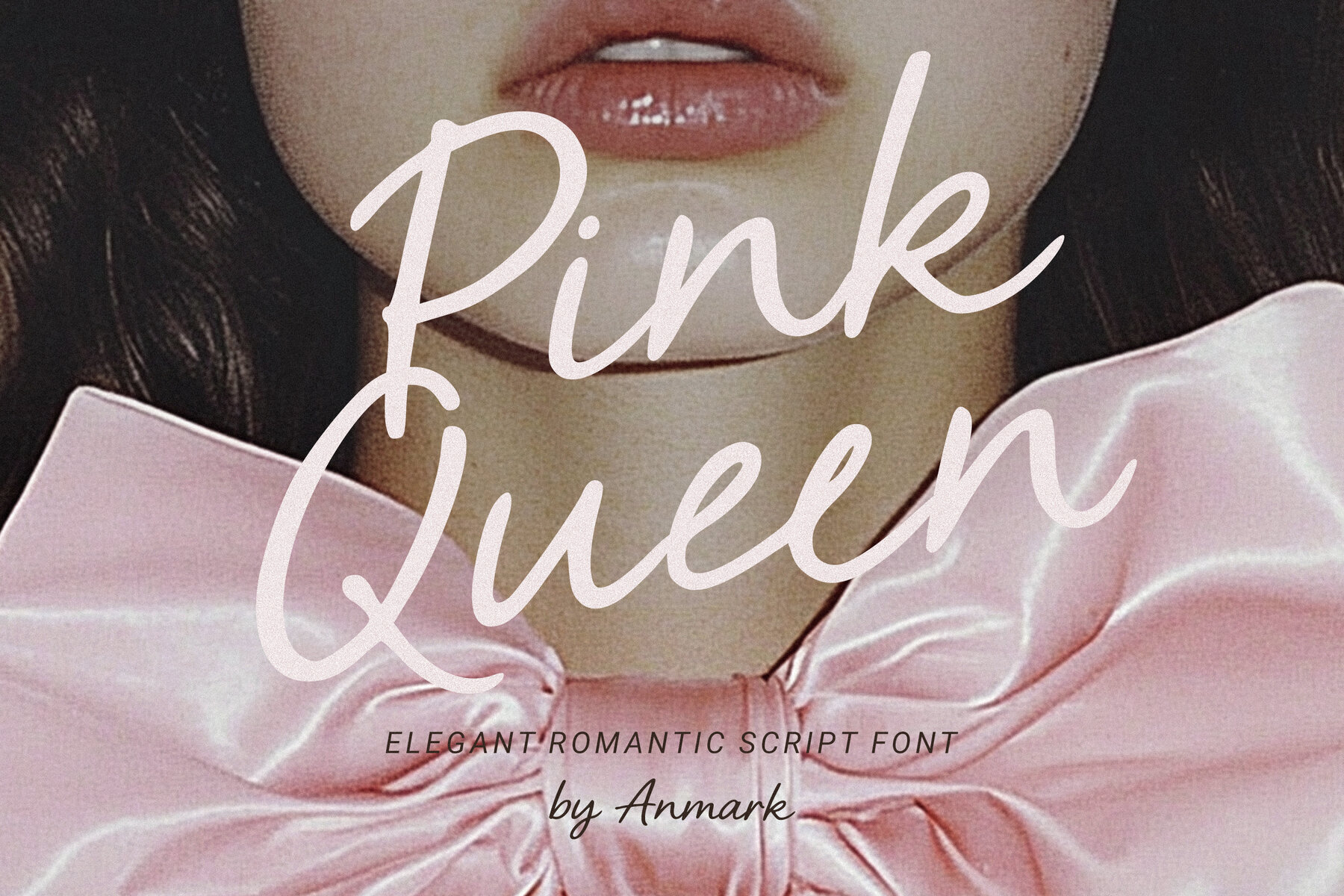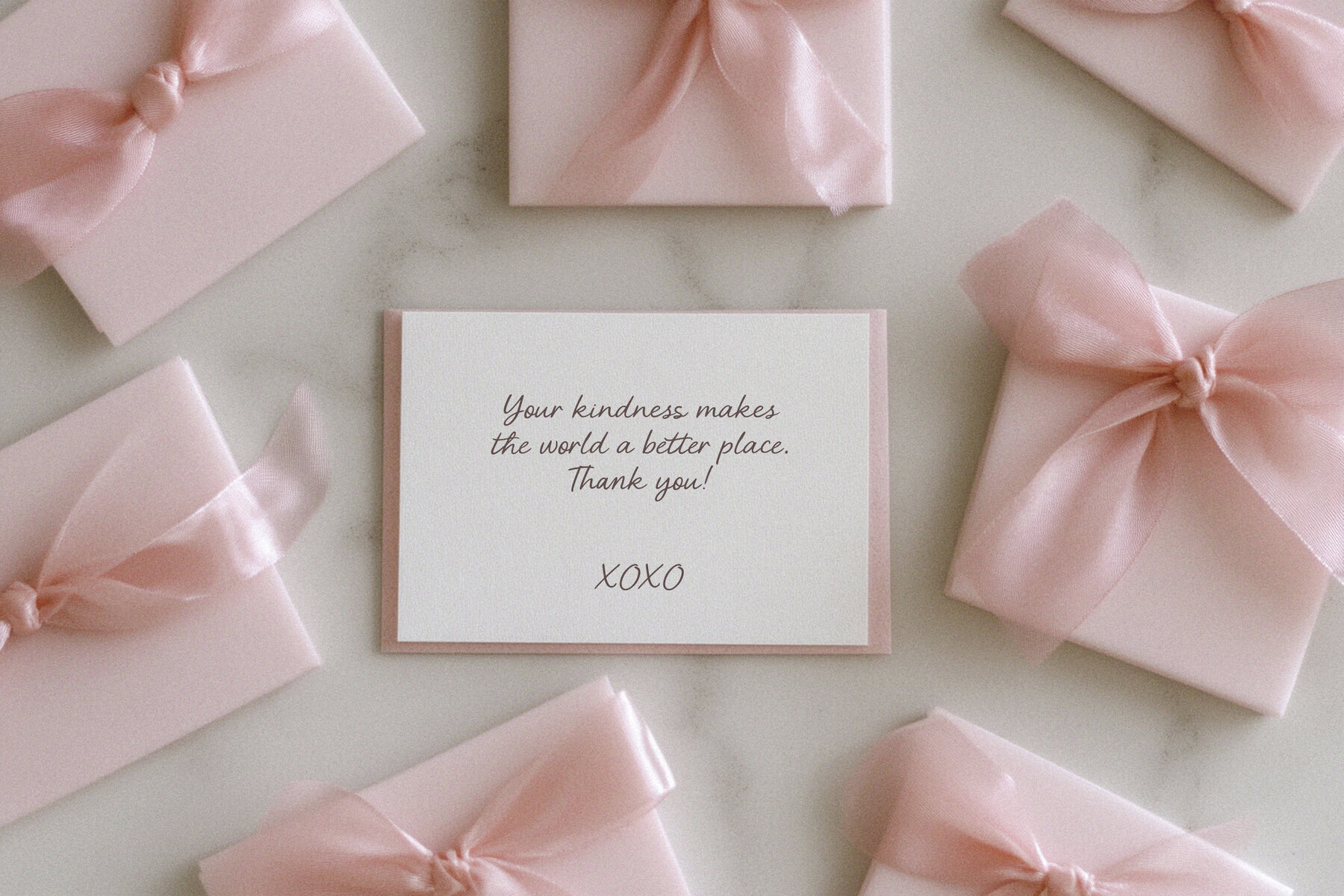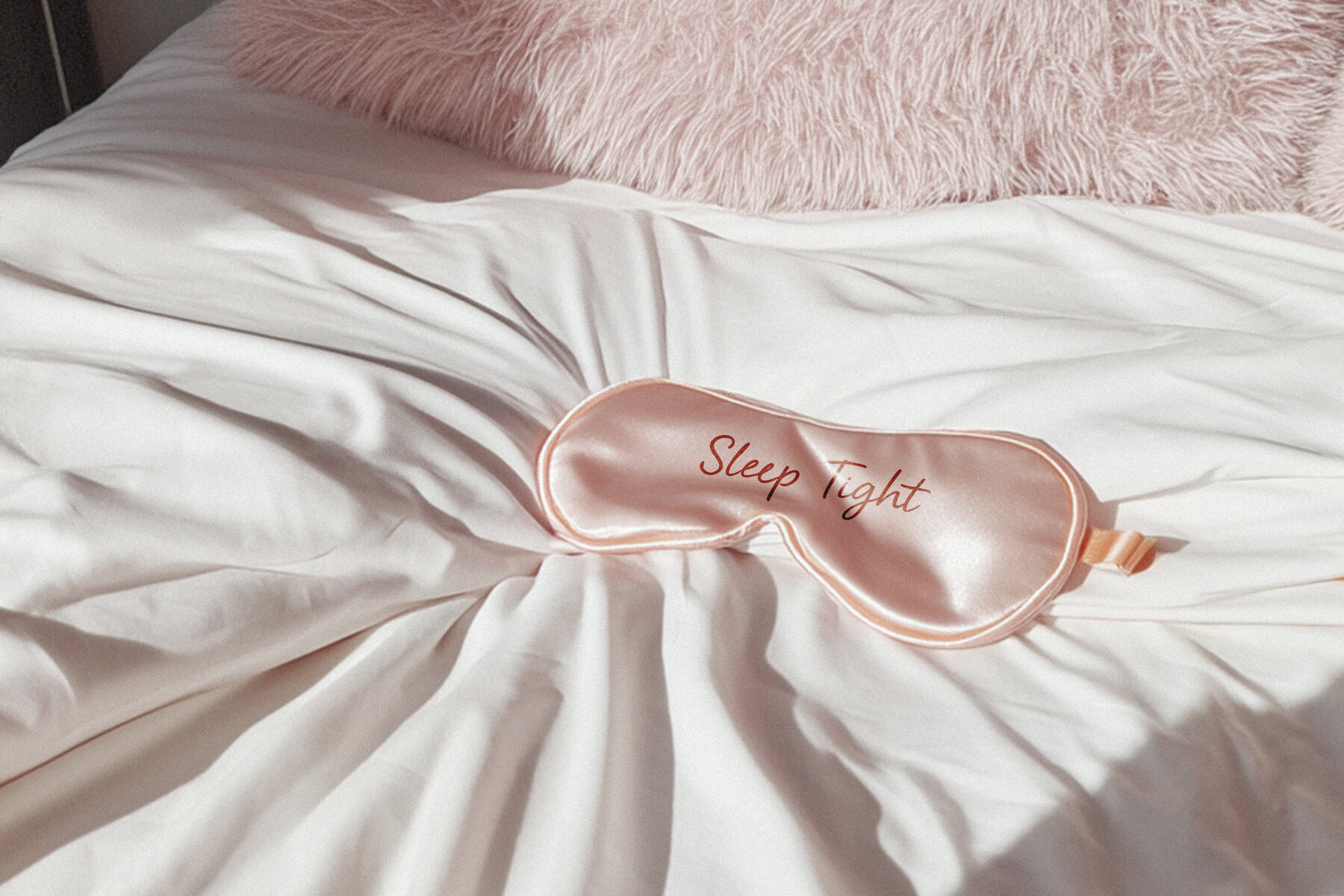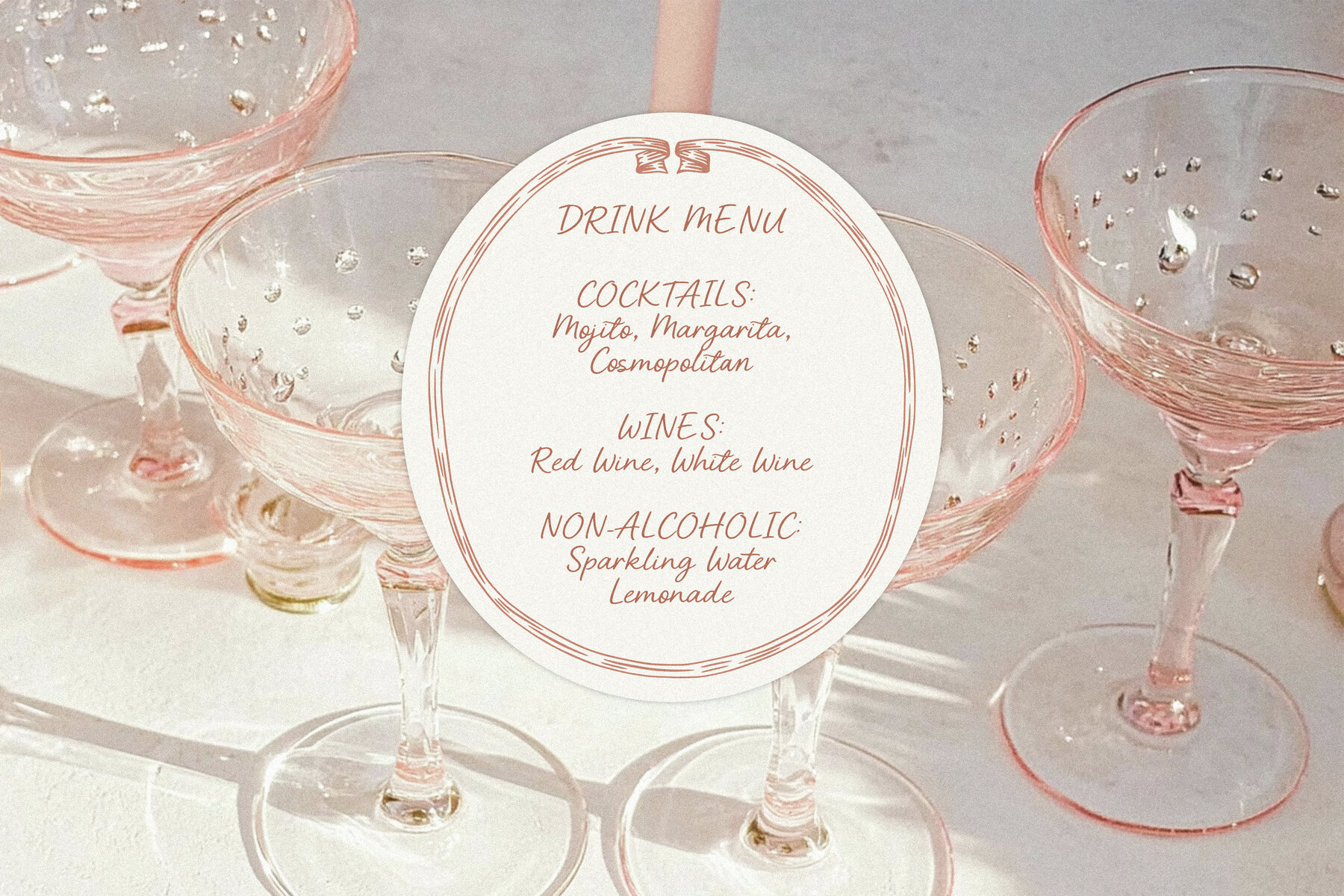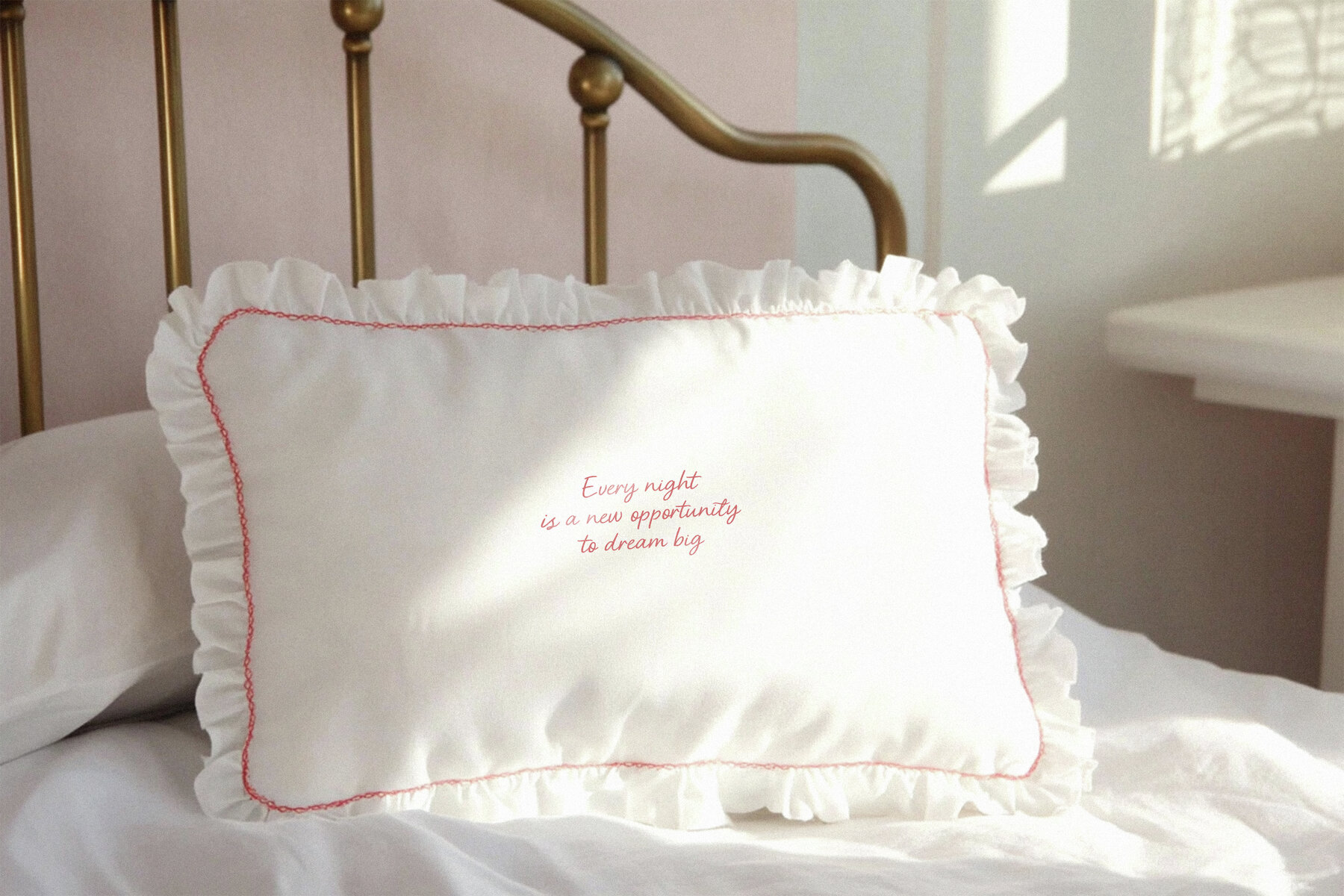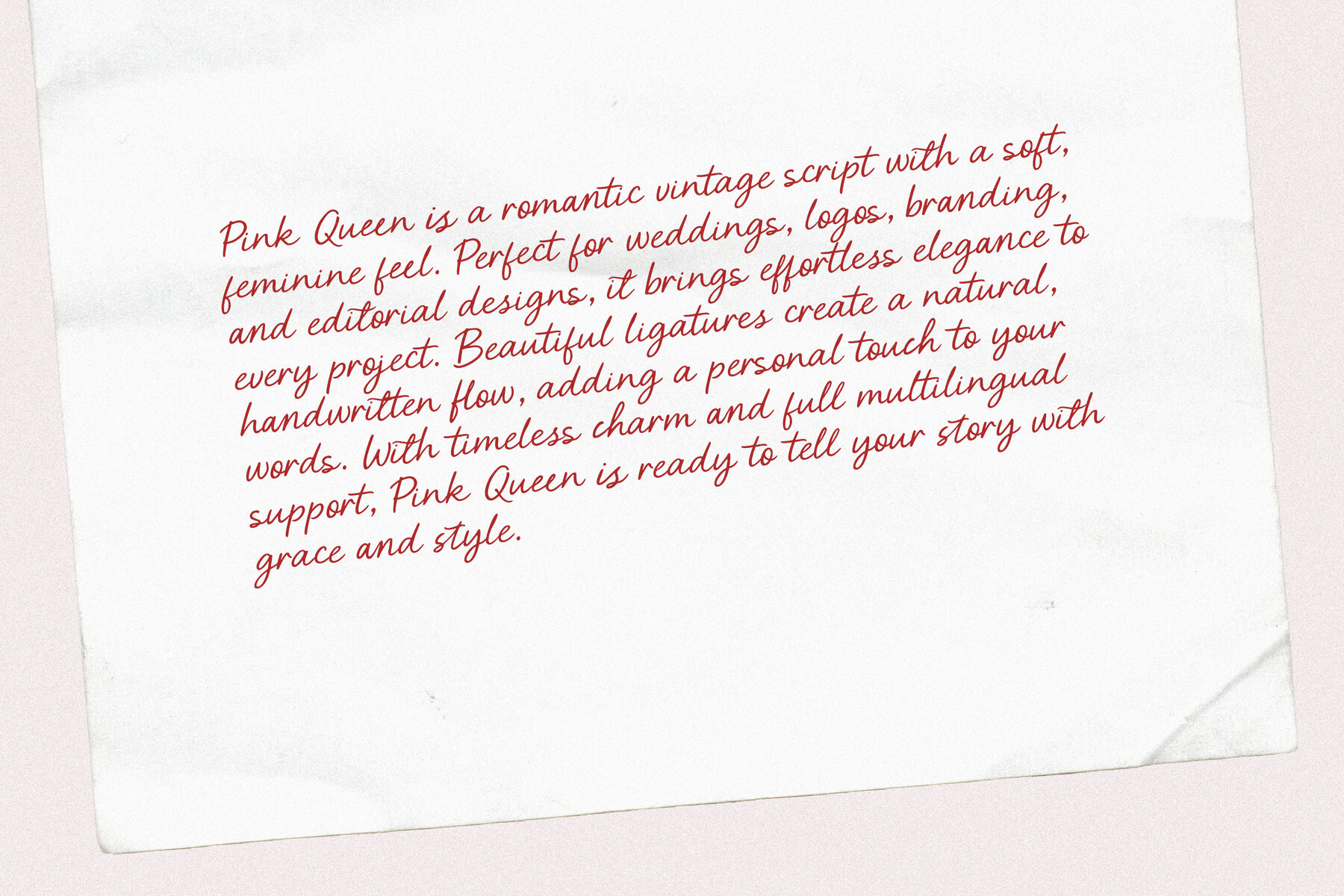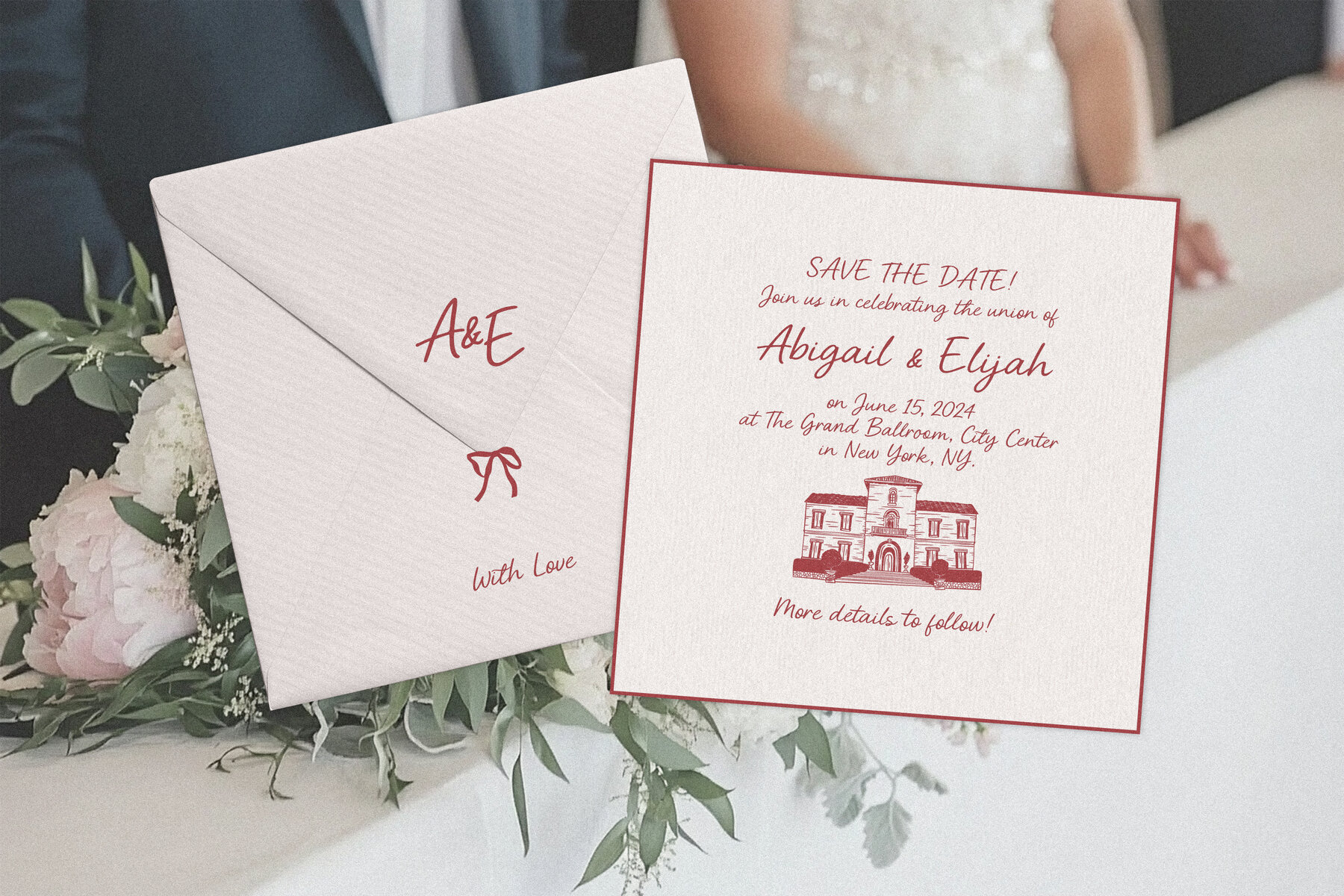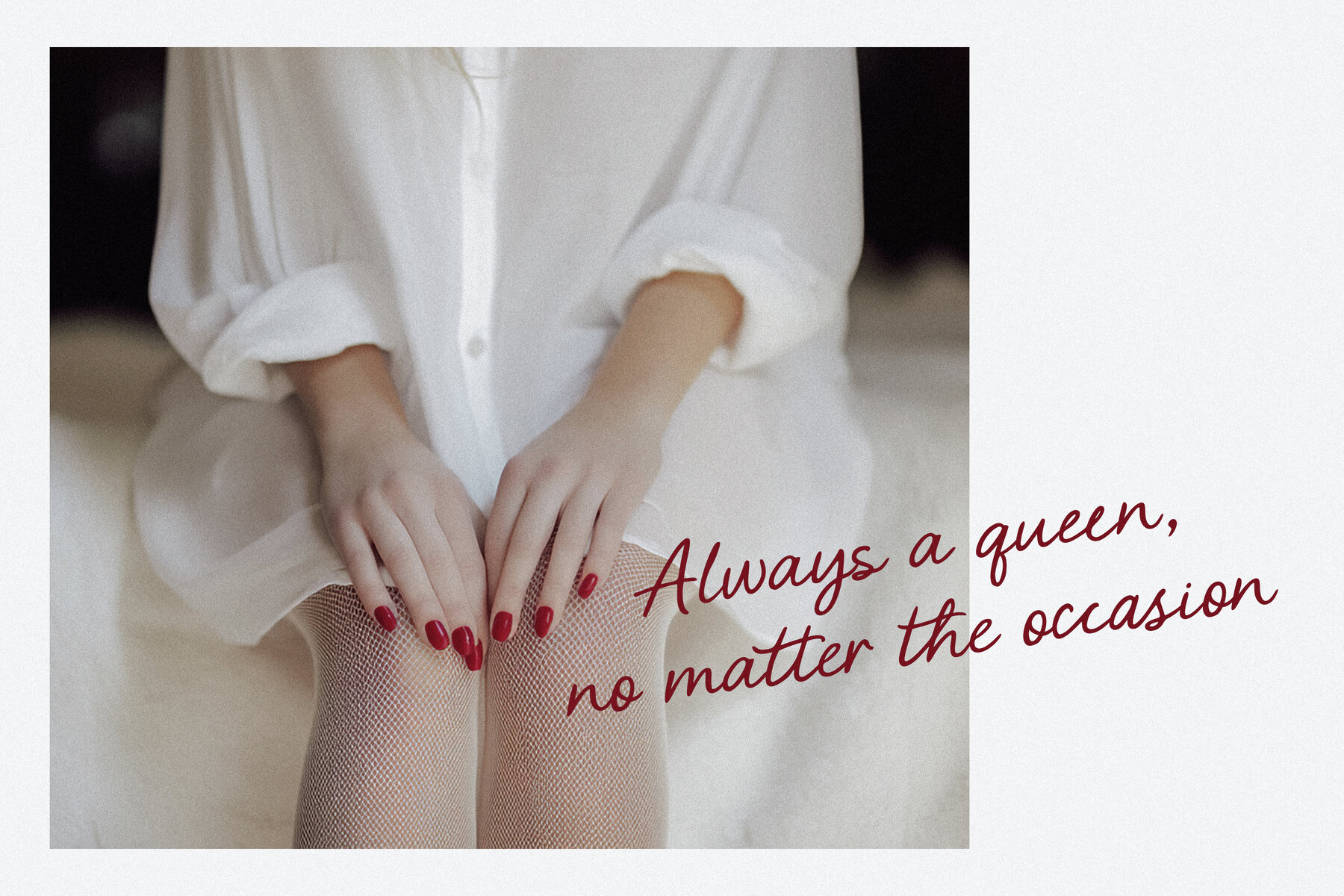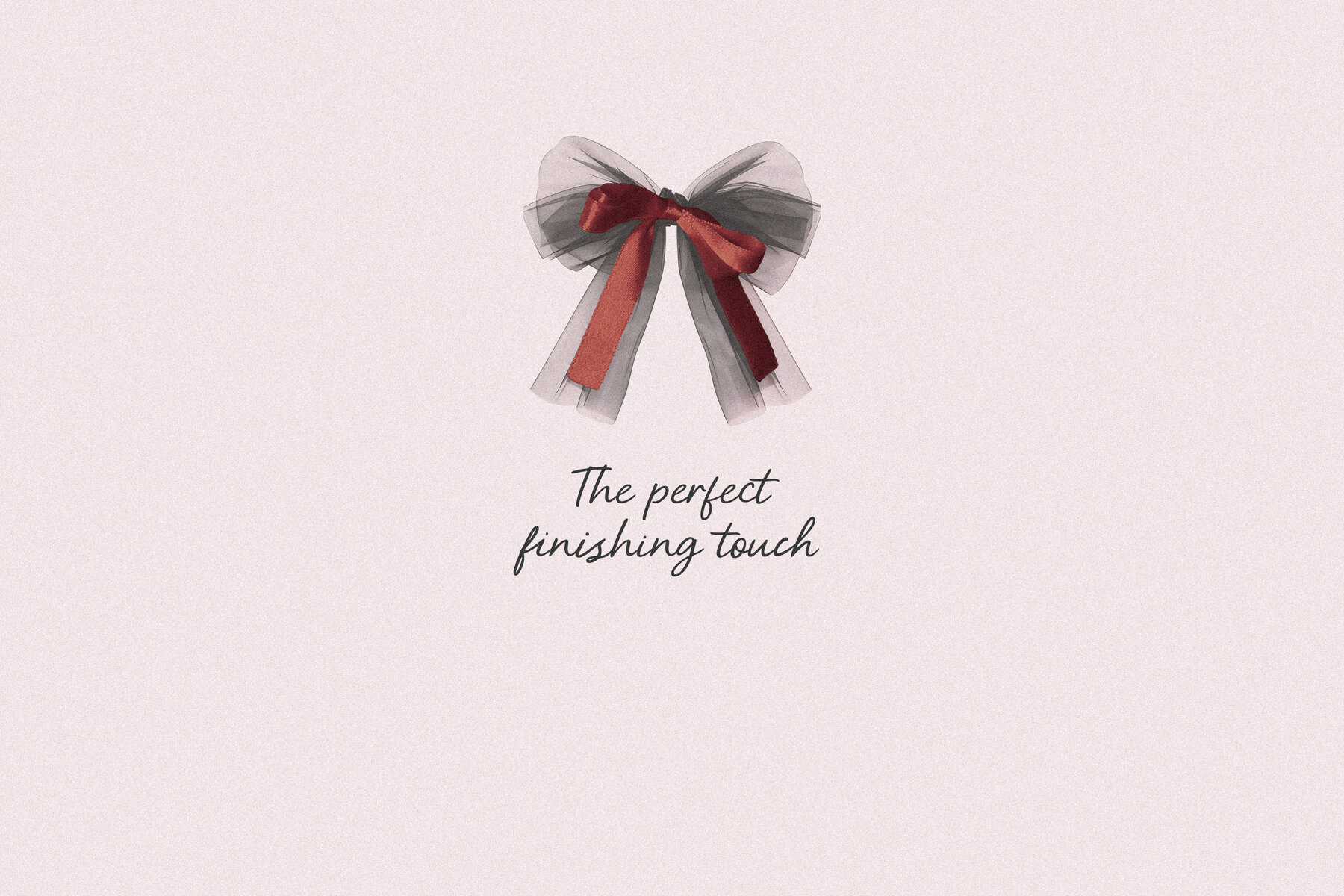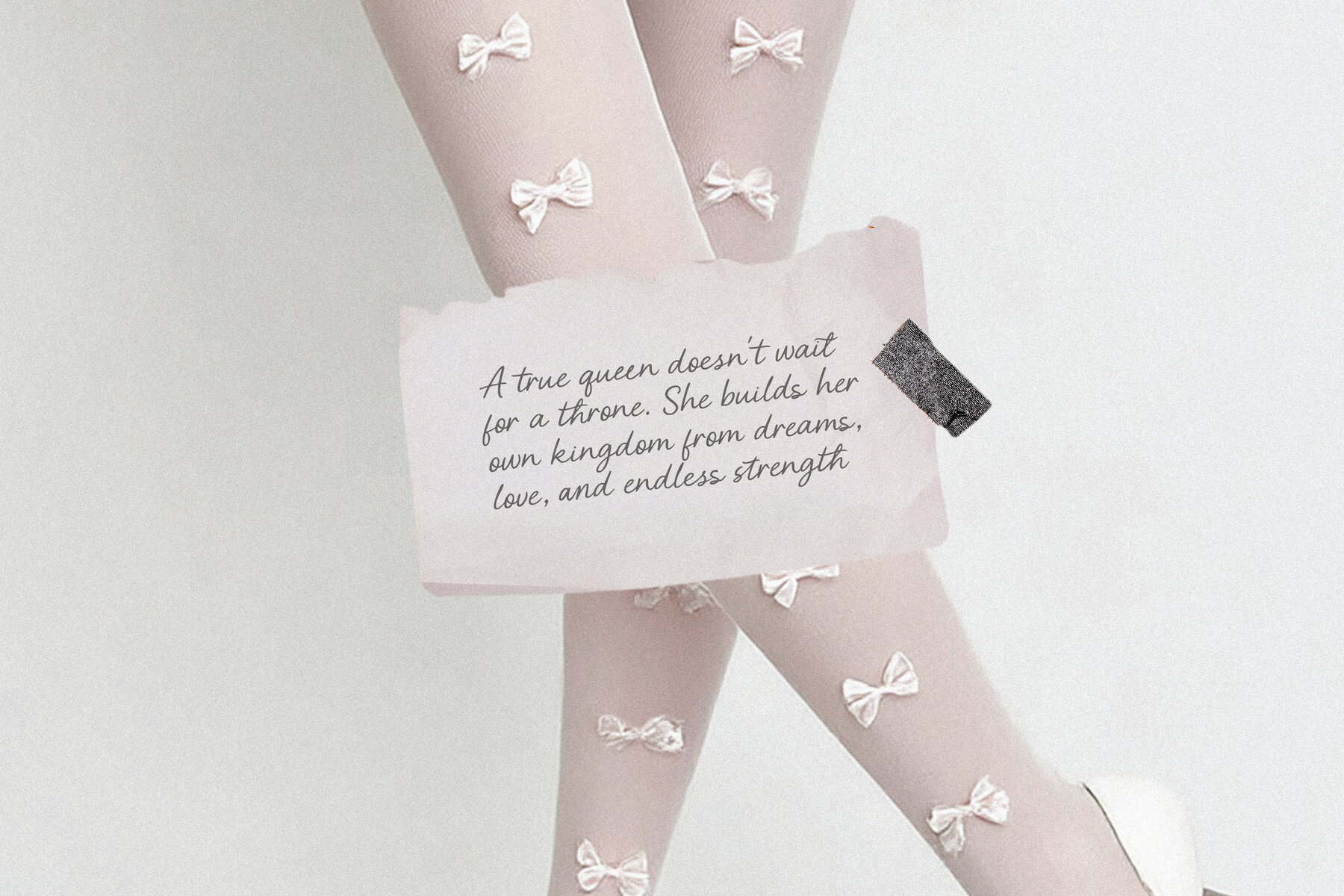
Pink Queen Font
Pink Queen
Pink Queen is a testament to elegance, romance, and timeless beauty. Drawing inspiration from vintage charm and the fairytale glow, this script font adds a delicate, feminine touch to any creation. Ideal for wedding invitations, bridal branding, event stationery, boutique logos, and elegant packaging, Pink Queen imbues every project with an ethereal quality. Its flowing curves and graceful lines narrate a story of romance and sophistication, establishing itself as an indelible choice when a touch of magic is required. Features: Whether crafting a wedding suite, a boutique brand, or a heartfelt love letter, Pink Queen infuses every moment with a sense of eternity.Pink Queen: A Script Font of Romance and Elegance